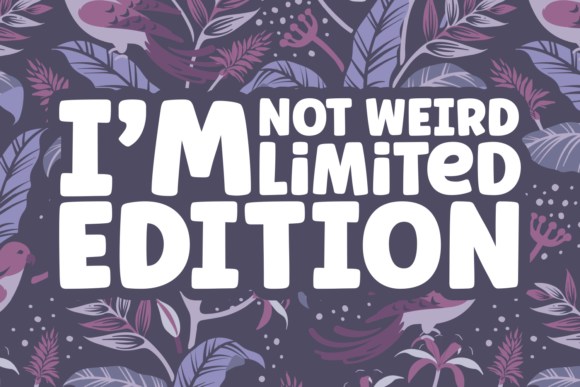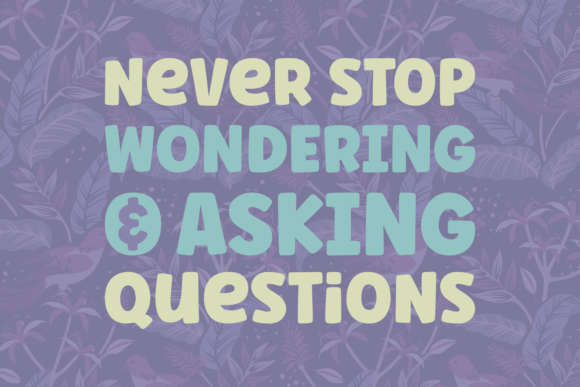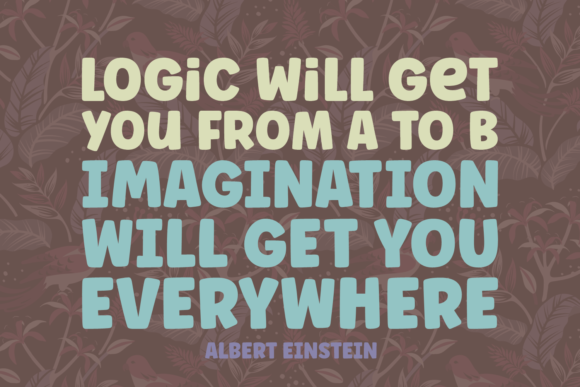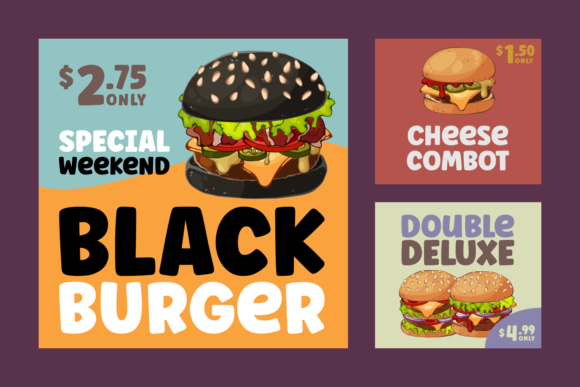
Ask Why Font
Ask Why is a cool, bold yet whimsical display font. Add this chunky lettered font to your designs and notice how it makes them come alive!